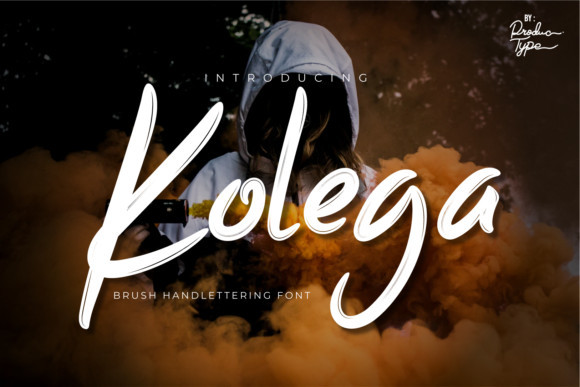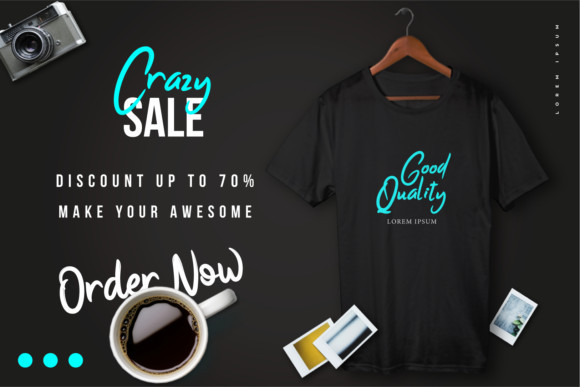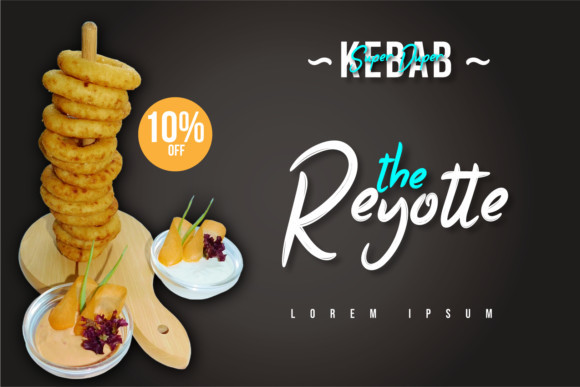
Kolega Font
Kolega is a bold brushed handwritten font. It has a unique and urban style and as a result, it will enhance a wide variety of casual designs.